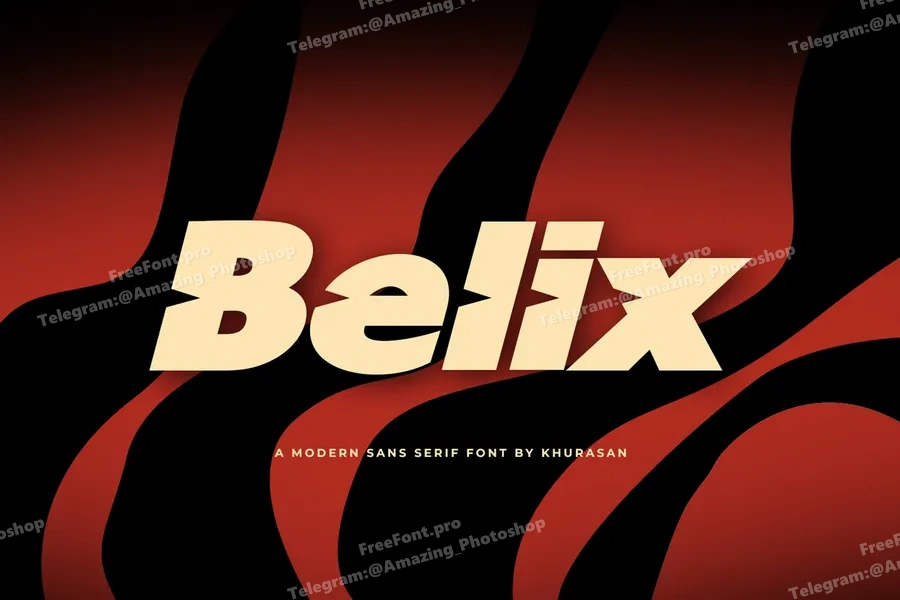
Introducing “Belix” from the Sans-Serif font family – a sleek and modern typeface that will elevate your designs to new heights! With clean lines and a contemporary aesthetic, Belix is perfect for adding a touch of sophistication to your projects.
Let your creativity flow as you experiment with this versatile font. Whether you’re designing a sleek logo, crafting eye-catching marketing materials, or simply adding a stylish touch to your social media posts, Belix is sure to make a statement.
Embrace the clean and crisp look of Belix and watch as your designs come to life with a touch of elegance. Elevate your projects with this trendy font and let your creativity shine!
ntroducing, Belix is a modern bold sans serif font, elegant and modern feel character set. The Belix unique font with truncated font style as well as multi-lingual support, uppercase, numerals, & punctuation.